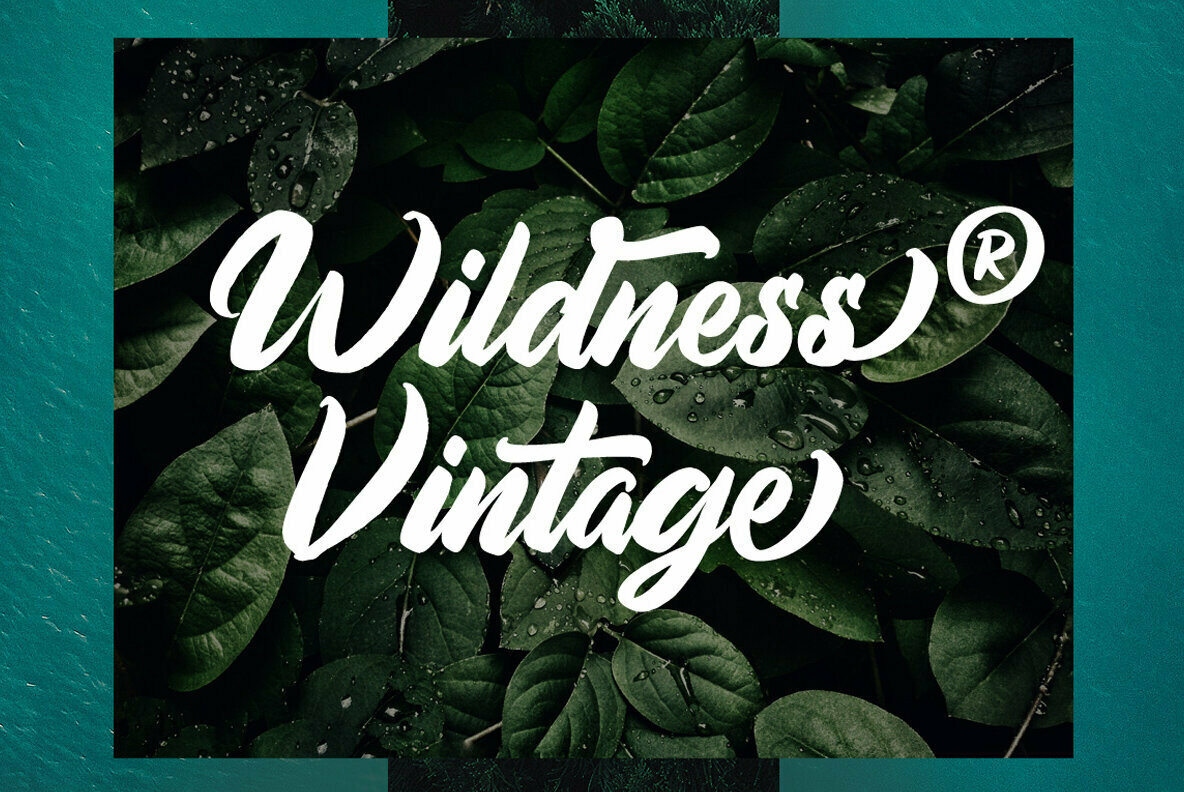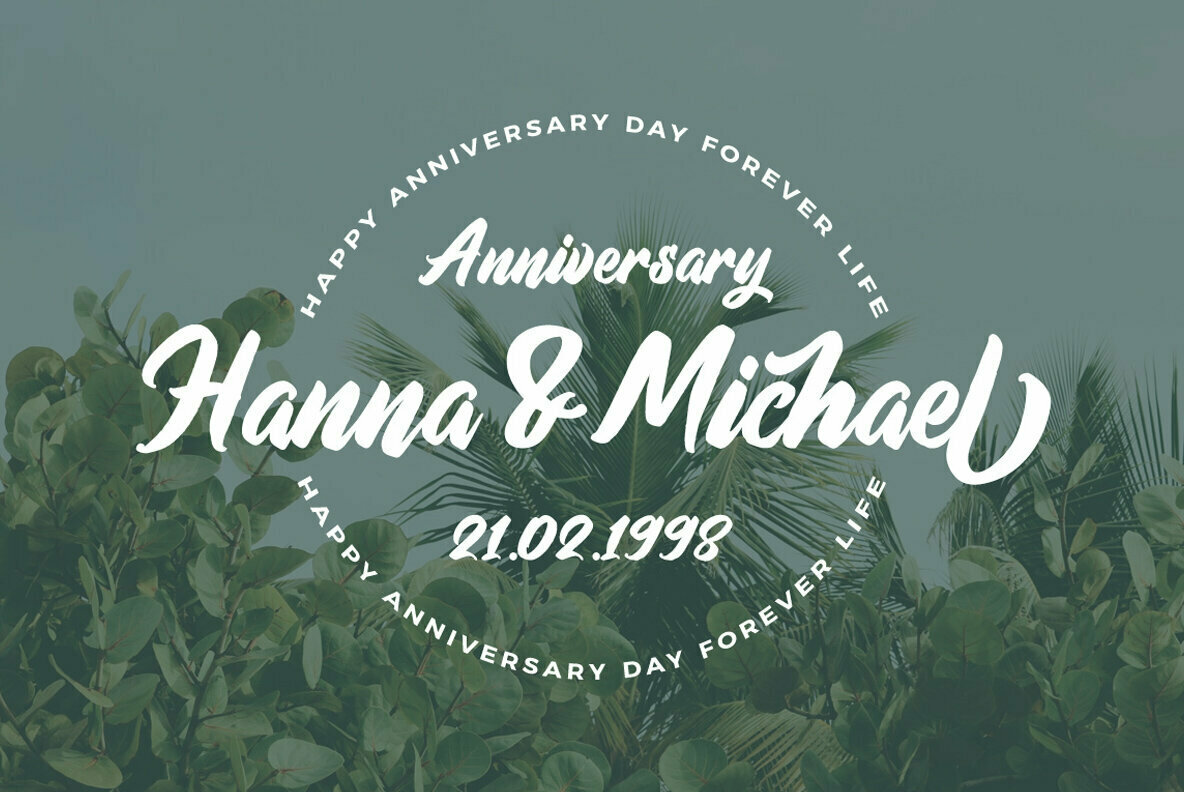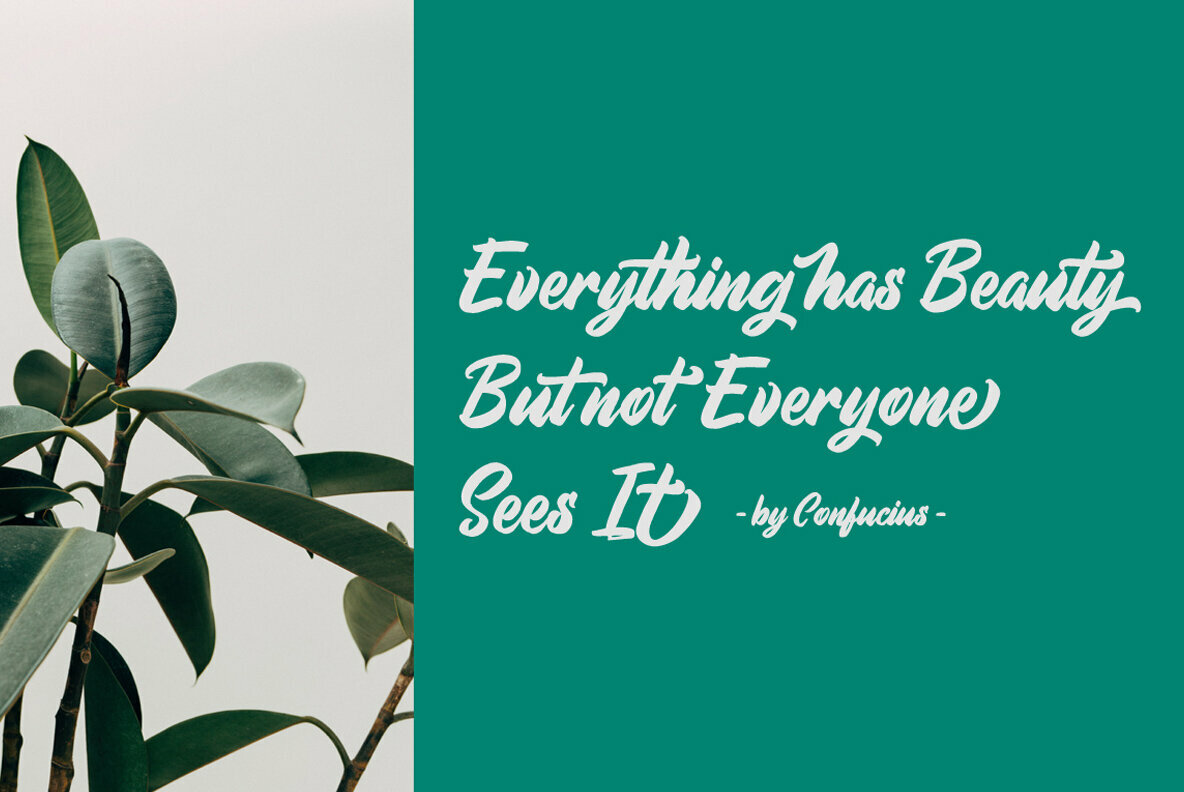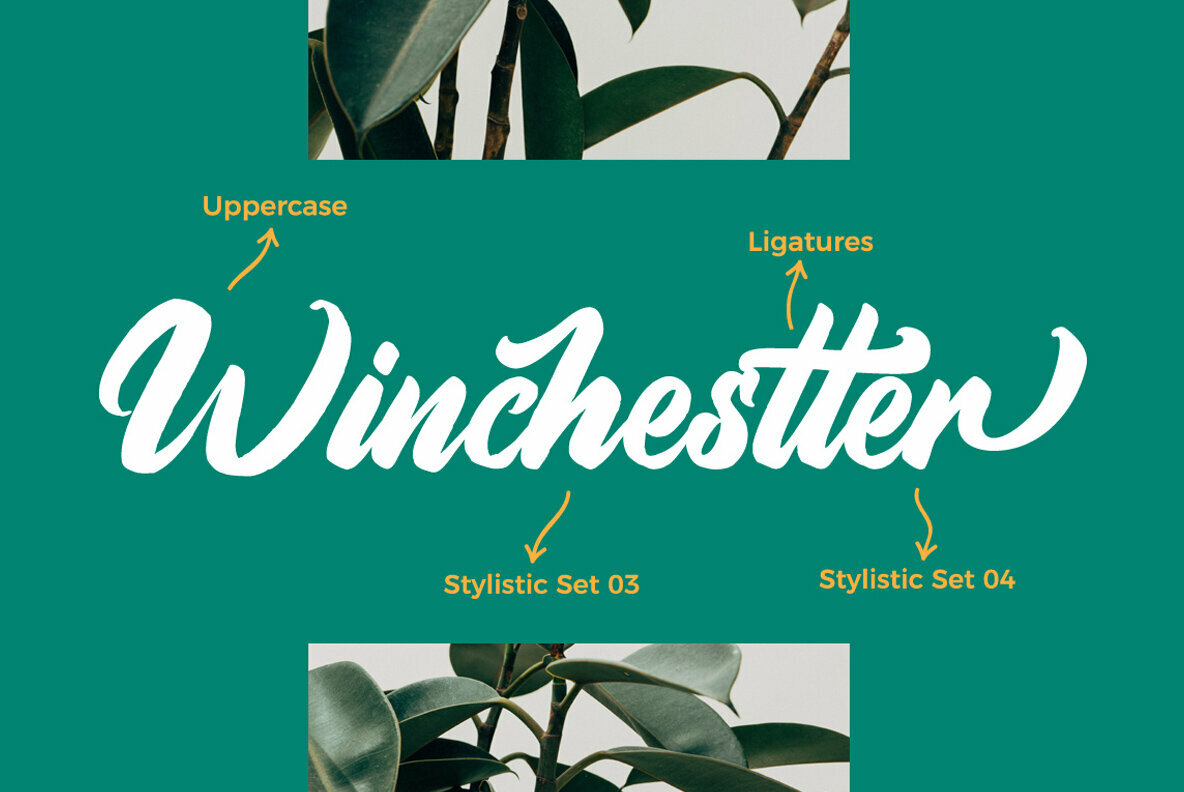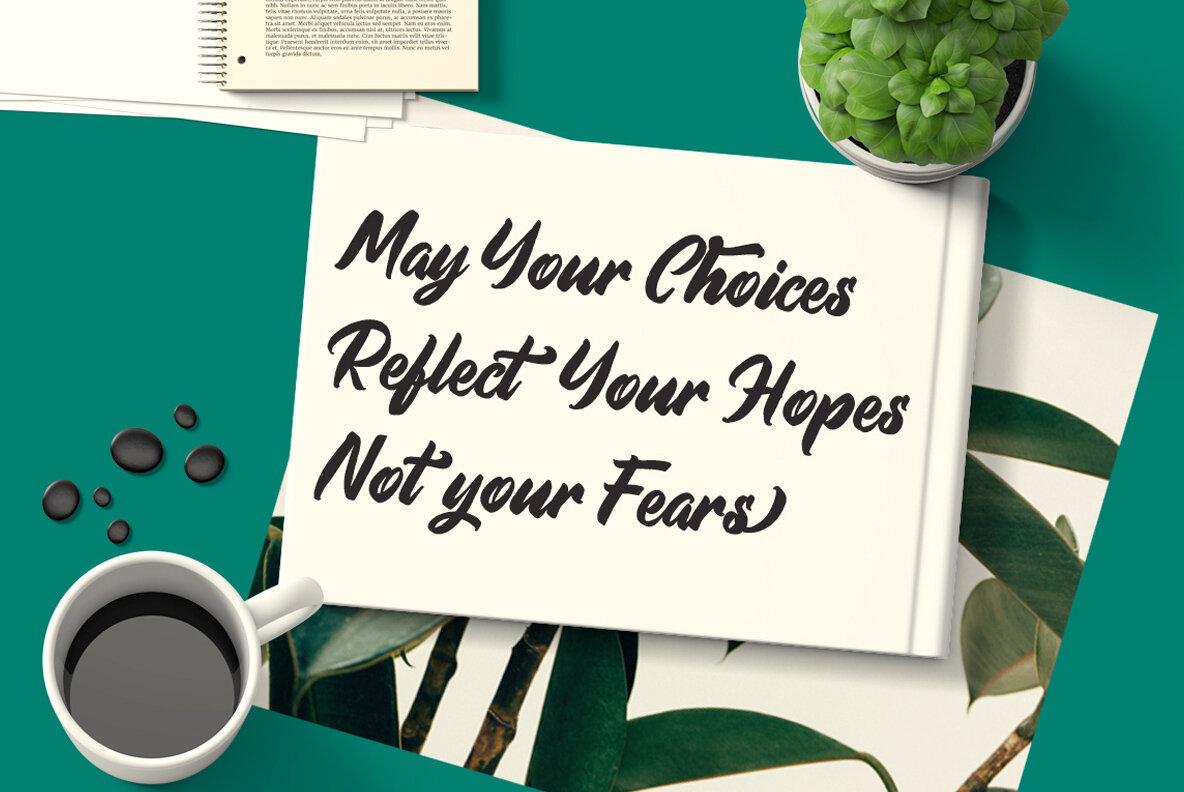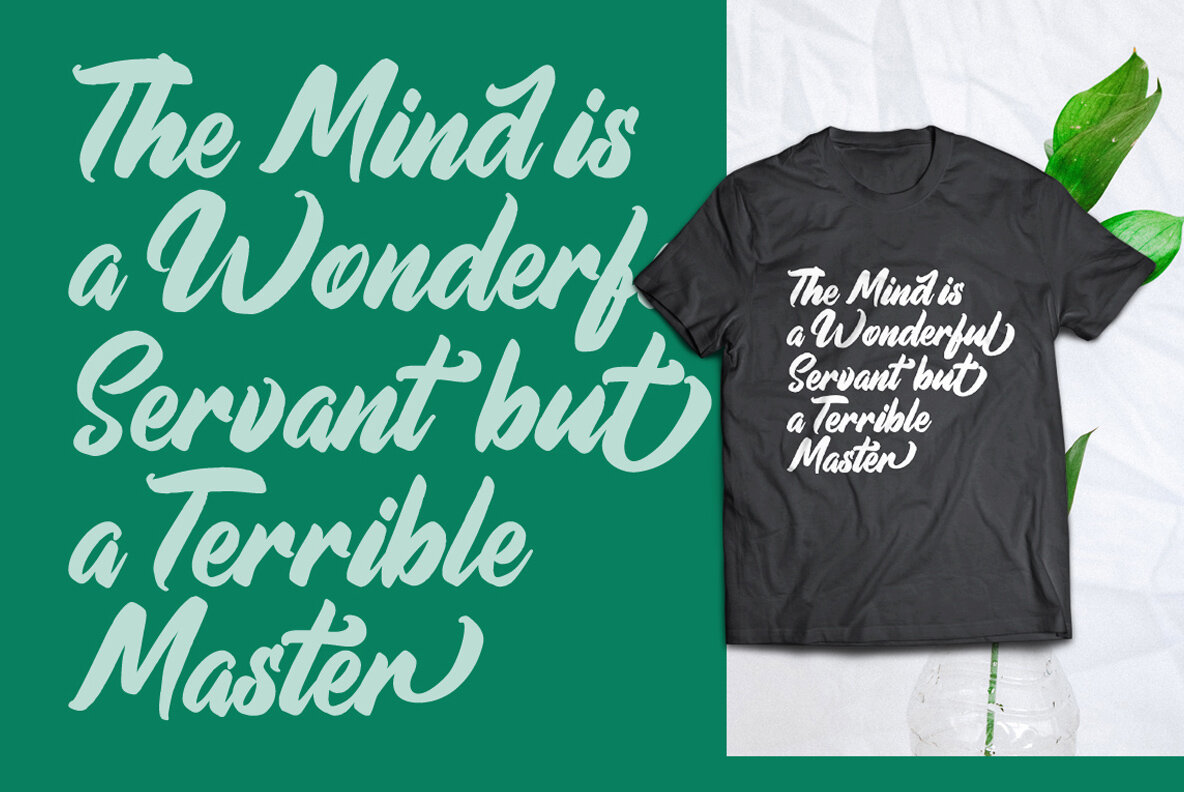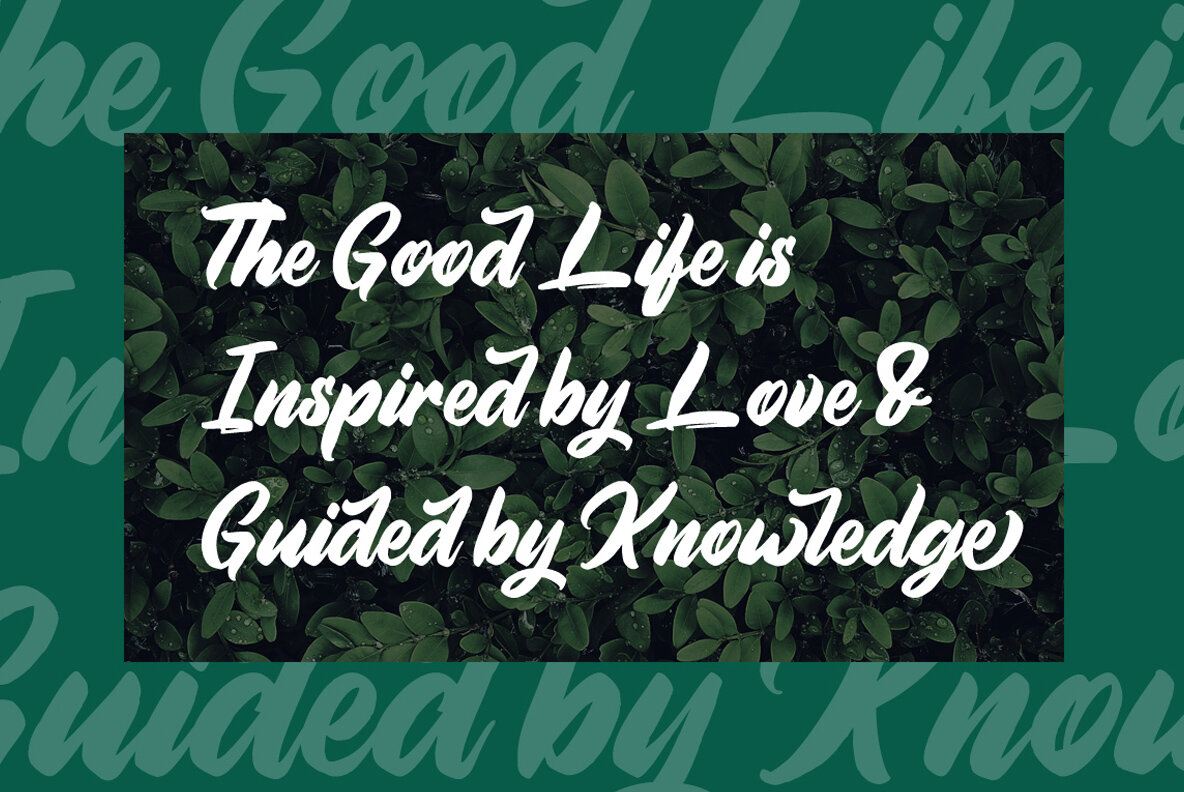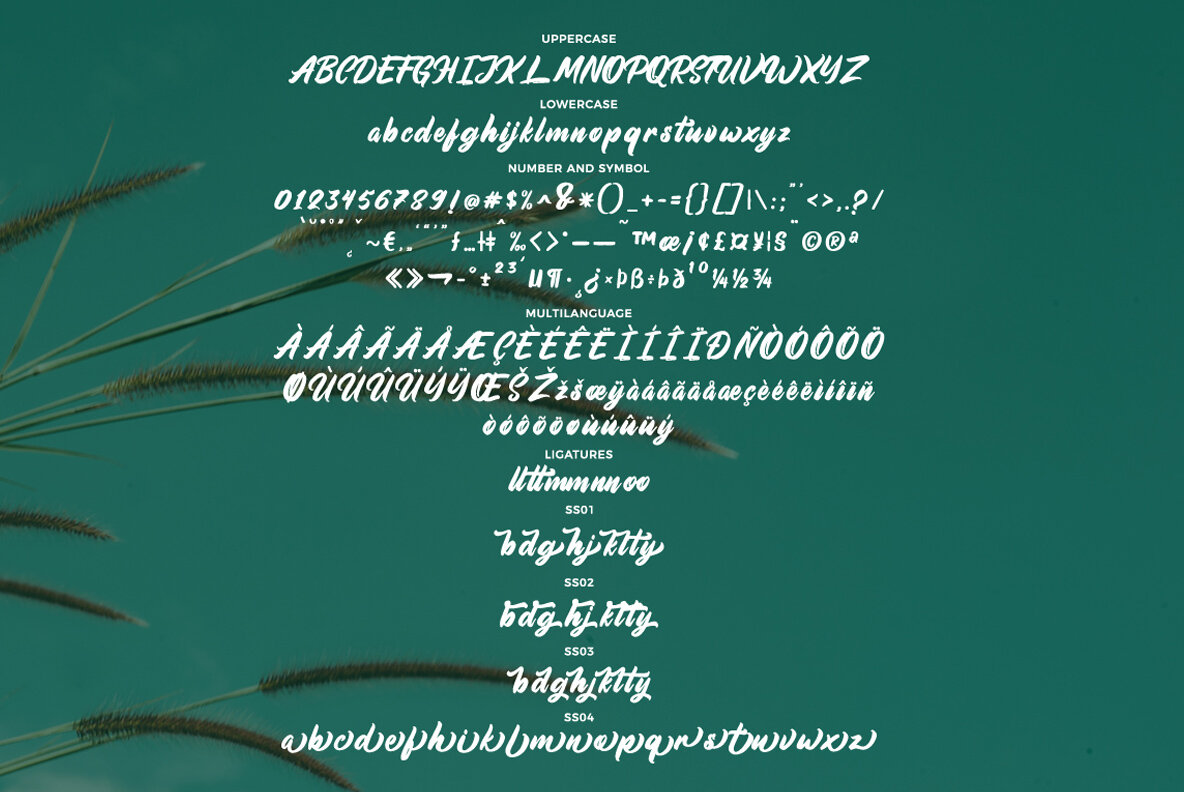
Aimchestar Font
Aimchestar
Aimchestar presents itself as a captivating script font designed in a handlettering brush style. Its charm and versatility make it suitable for a plethora of design needs, including weddings, events, t-shirts, logos, badges, and stickers.Aimchestar: Handlettering Brush Script